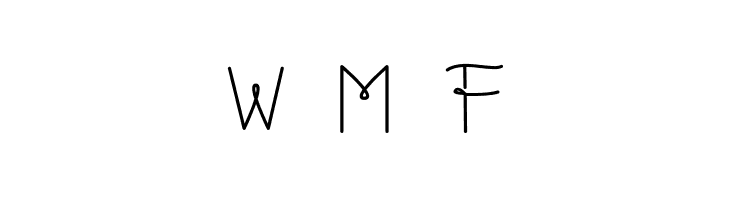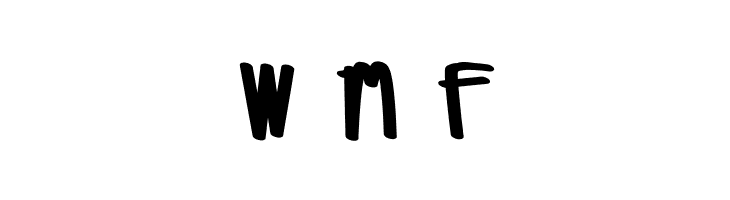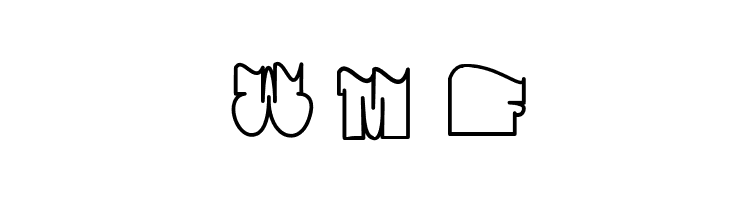
A geometric and angular font with a modern, edgy style.
A modern, slanted font with geometric lines and a dynamic style.
A bold, distressed script font with dynamic curves and a rugged texture.
A playful, hand-drawn font with whimsical, irregular strokes.
An ornate and decorative script font with elegant swirls and flourishes.
A bold, geometric sans-serif font with a modern, minimalist design.
A bold, graffiti-inspired font with dynamic, angular characters.
A bold, graffiti-inspired font with dynamic and expressive strokes.
A bold, graffiti-inspired font with sharp angles and a rugged texture.
A bold, graffiti-inspired font with an urban, rebellious style.
A bold, graffiti-inspired font with a hand-drawn, urban style.
A decorative, gangland-inspired font with intricate loops and angular lines.
A bold, graffiti-inspired font with thick, rounded strokes and a playful urban aesthetic.
A bold, playful handwritten font with thick, rounded strokes and a lively appearance.
A bold, scratchy, hand-drawn font with a dynamic and textured appearance.
A bold, graffiti-inspired font with exaggerated curves and sharp angles.
A bold, graffiti-inspired font with sharp, angular lines and dynamic energy.
A playful and dynamic handwritten font with fluid, irregular strokes.
A tactile font representing Braille for visually impaired readers.